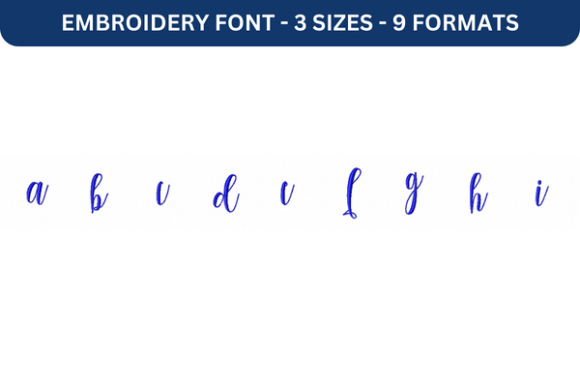
Melany Script Font Lower a to I
The Melany Script Font Lower a to I is a versatile machine embroidery design that offers a soft, flowing aesthetic perfect for personalization on a variety of apparel. As an experienced embroidery designer, I've tested this font across multiple fabric types and styles, and it consistently delivers a polished, professional look that can elevate any custom apparel project.
First Impressions: A Flowing, Elegant Script
From the moment I laid eyes on the Melany Script Font Lower a to I, I was struck by its smooth, hand-drawn feel. The script has a natural, almost handwritten quality that adds a touch of personality without being too ornate. It’s ideal for names, dates, or short quotes, making it a go-to choice for small shop product and handmade product branding.
The detail level is impressive, with consistent line weight and clear letterforms that translate well to both light and dark fabrics. Whether you're working on a neutral sweatshirt or a pastel hoodie, the font maintains its elegance and readability. This makes it a strong candidate for boutique brand projects where visual consistency is key.
Applications in Sweatshirt Embroidery
For a limited sweatshirt drop, the Melany Script Font Lower a to I would work exceptionally well as a chest or back design. Its flowing style pairs beautifully with oversized hoodies and cozy seasonal apparel, adding a subtle yet stylish touch. On dark fabric, the font stands out with minimal thread color contrast, while on lighter colors, it remains delicate and refined.
This embroidery file is also great for sleeve accents or smaller placements, such as on tote bags or aprons. Its compact size ensures it doesn’t overwhelm the design, making it suitable for both minimalist and decorative approaches. For a boutique merchandise line, the font’s versatility allows it to be used across different product types, reinforcing brand identity and visual recognition.
Design Considerations for Custom Apparel
One of the first things I checked when evaluating the Melany Script Font Lower a to I was how it performed on different fabric textures. The stitch density is well-balanced, which means it won’t pucker on thinner materials or look too dense on heavier fabrics. This makes it a reliable choice for commercial embroidery, especially when working with sweatshirt embroidery that requires durability.
Stabilizer choice is important here—especially for lightweight fabrics. Using a medium-weight tear-away stabilizer helps maintain the integrity of the design during the stitching process. For larger hooping, the font’s layout is manageable within standard hoop sizes, though care should be taken to ensure proper placement for even stitching.
Thread color contrast is another factor to consider. While the font works well on darker backgrounds, it may require a contrasting thread color on lighter fabrics to ensure visibility. This is particularly important for Etsy sellers looking to create visually striking listings that stand out in search results.
Practical Concerns for Embroidery Shops and Small Businesses
As an embroidery shop owner, I always evaluate how a design will hold up after washing. The Melany Script Font Lower a to I appears to be sturdy enough for commercial use, provided the correct stabilizer and stitch count are used. For small shop product, this translates to higher customer satisfaction and repeat business.
Readability at smaller sizes is another consideration. While the font is legible, it may not be ideal for extremely small placements without adjusting the scale. For custom apparel branding, this means planning ahead to ensure the final product meets expectations.
Impact on Brand Value and Customer Engagement
Using the Melany Script Font Lower a to I can significantly enhance the perceived value of a handmade product. Its elegant style contributes to a premium feel that aligns with the expectations of customers shopping for boutique brand items. This is especially true for Back To School campaigns, where personalized items like sweatshirts or backpacks can make a lasting impression.
From a marketing perspective, the font’s clean lines and soft curves make it ideal for Etsy listings and social media content. It adds a personal touch that can increase customer engagement and encourage repeat purchases. For creative entrepreneurs, this means more opportunities to build a loyal customer base through consistent, high-quality design work.